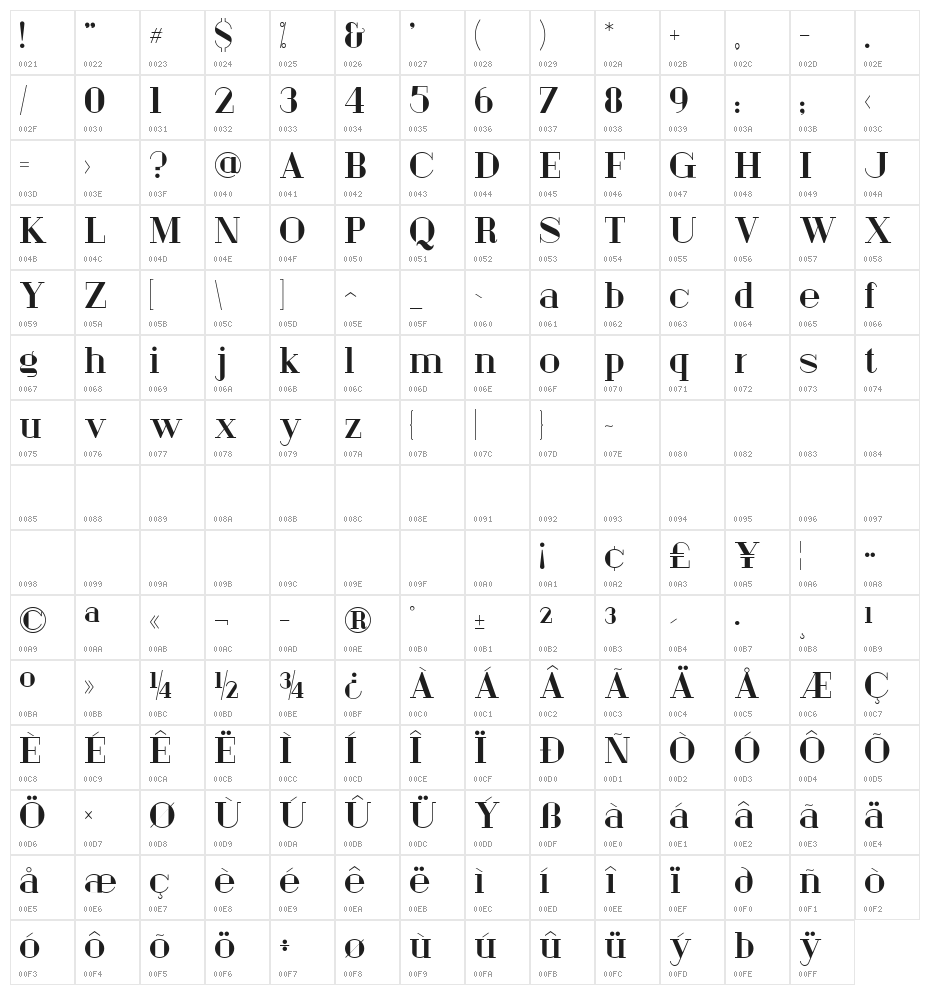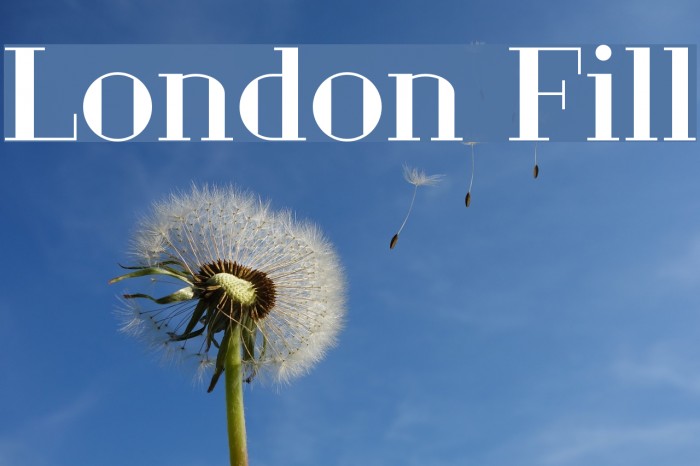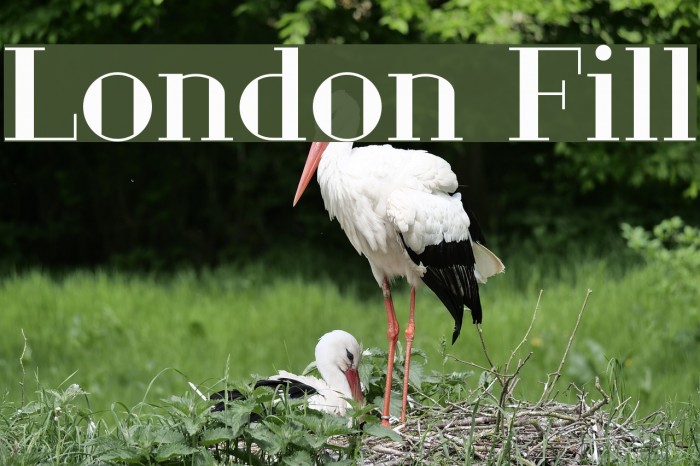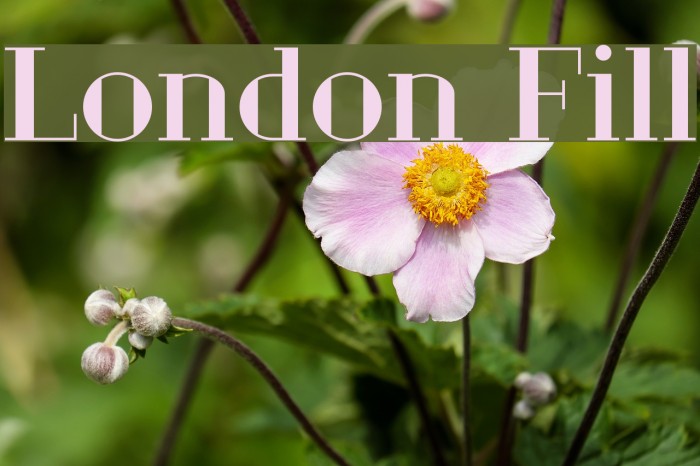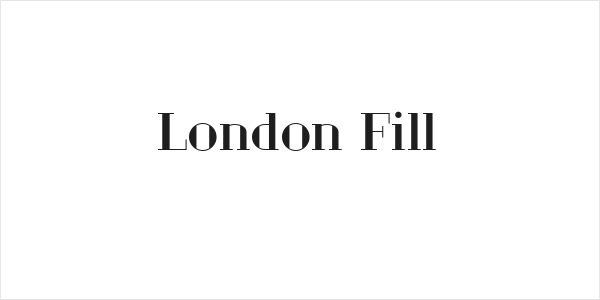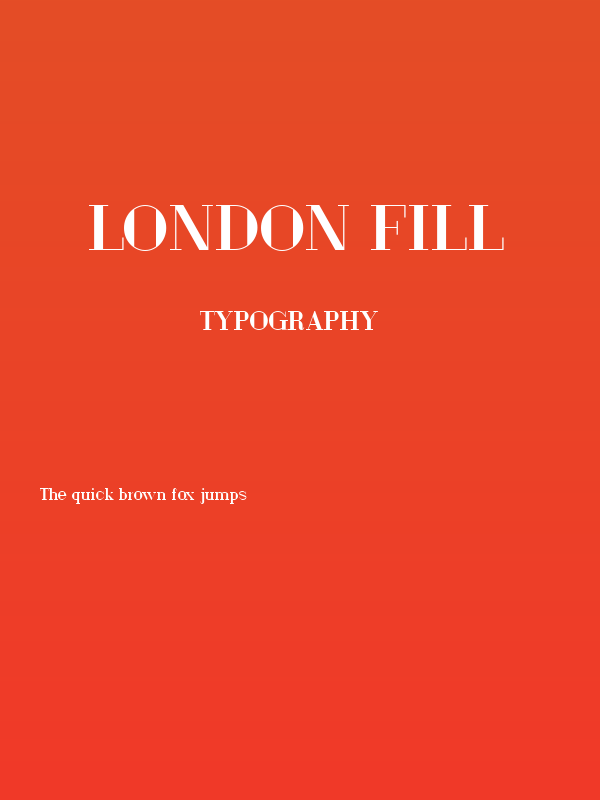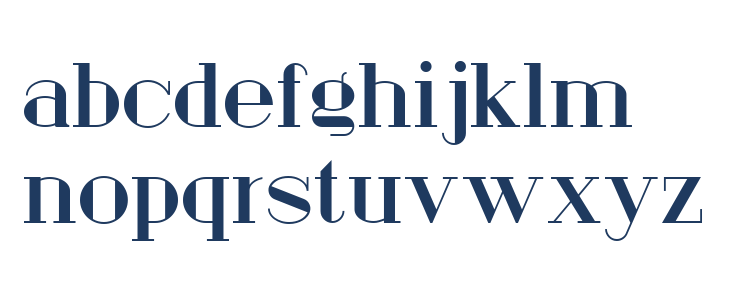
London Fill Font
London Fill Description
This font features a striking and elegant design with high contrast between thick and thin strokes, giving it a sophisticated and modern appearance. The uppercase letters are bold and commanding, while the lowercase letters maintain a consistent style with a slightly softer touch. The numerals are distinct and stylish, complementing the overall aesthetic. Special characters are crafted with precision, adding to the font's versatility. The font's design is both classic and contemporary, making it suitable for a variety of applications where a touch of elegance is desired.
| Proposed Projects | Ideal for luxury branding, editorial design, fashion magazines, and high-end product packaging. |